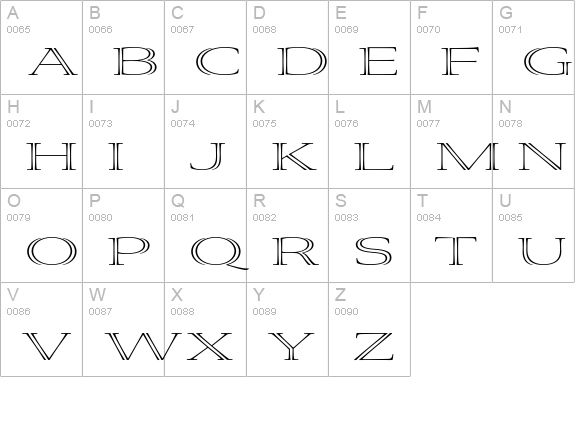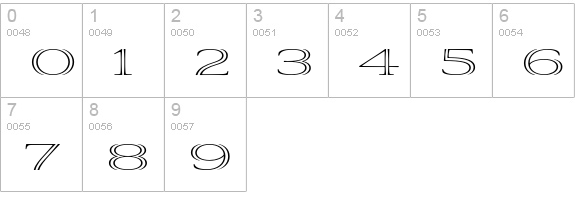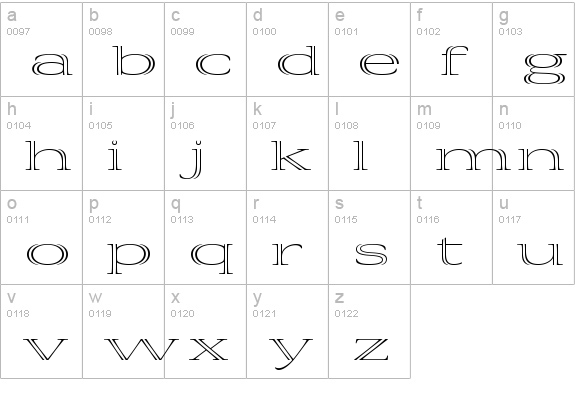
Viva Std Light ExtraExtended is a refined, elegant variant in the Viva typeface family \xE2\x80\x94 well suited to elegant body text, refined sub-headings, and luxury branding.
Viva Std Light ExtraExtended font is a stunning typeface that exudes elegance and sophistication. Its slim and elongated letterforms are perfect for adding a touch of modernity to any design project. With its clean lines and stylish curves, this font effortlessly catches the eye and demands attention. The beauty of Viva Std Light ExtraExtended font lies not only in its aesthetics but also in its versatility. Its extra extended proportions make it ideal for a wide range of design applications such as headlines, titles, logos, and branding materials. Whether you're creating a sleek and contemporary website or designing a standout packaging design, this font will effortlessly elevate your project to new heights. One of the best things about Viva Std Light ExtraExtended font is that it is free. Yes, you read that right – this amazing font is available for free! You can easily download it at FontsMarket.com, a reputable platform that offers a vast collection of high-quality fonts. This means that you can access this beautiful font without spending a penny. So why wait? Take advantage of this incredible opportunity and download Viva Std Light ExtraExtended font today. Let it be the perfect addition to your next design project, helping you create captivating visuals that leave a lasting impression.